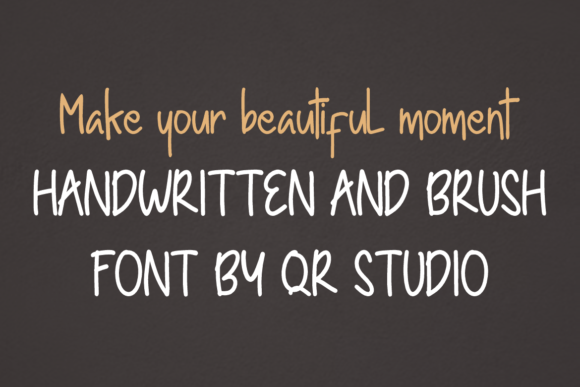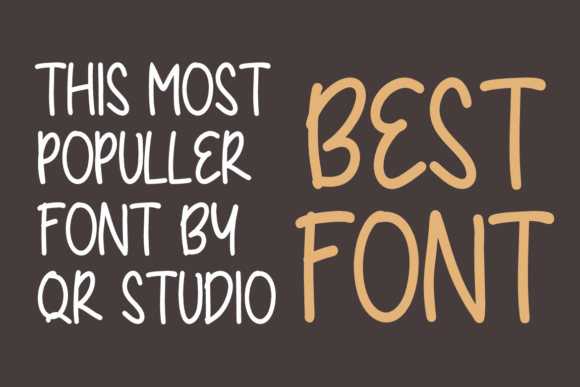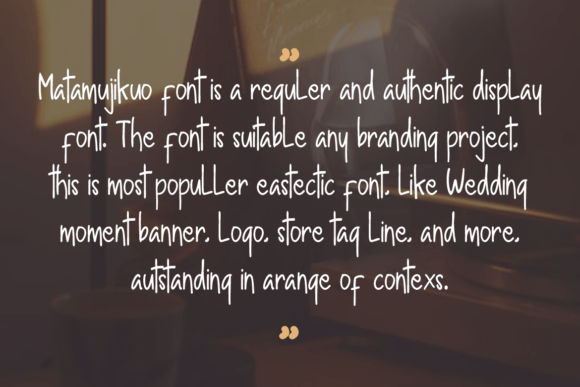
Introduction to Matamujikuo Font
Matamujikuo Font is a bold and authentic display font.
The font is suitable for any branding project like logo, wedding, fashion, and many more Outstanding in a wide range of contexts.
Key Features of Matamujikuo Font
Why Choose Matamujikuo Font?
Matamujikuo Font offers exceptional quality and versatility, making it a valuable addition to your design toolkit. Whether you’re creating for personal projects or commercial use, Matamujikuo Font delivers professional results.